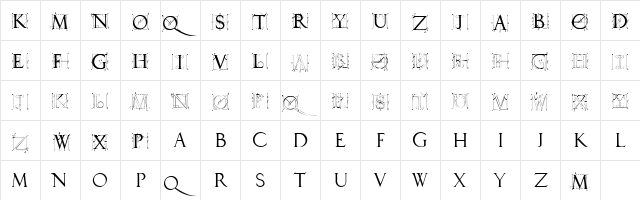
P22DurerCaps Regular
| Foundry | P22 / International House of Fonts |
| Designer | Terry Wߤenbachs |
Design Context for P22DurerCaps Typeface
P22DurerCaps takes a measured approach to typography — its balanced proportions and neutral character make it a reliable workhorse for both digital and print work.